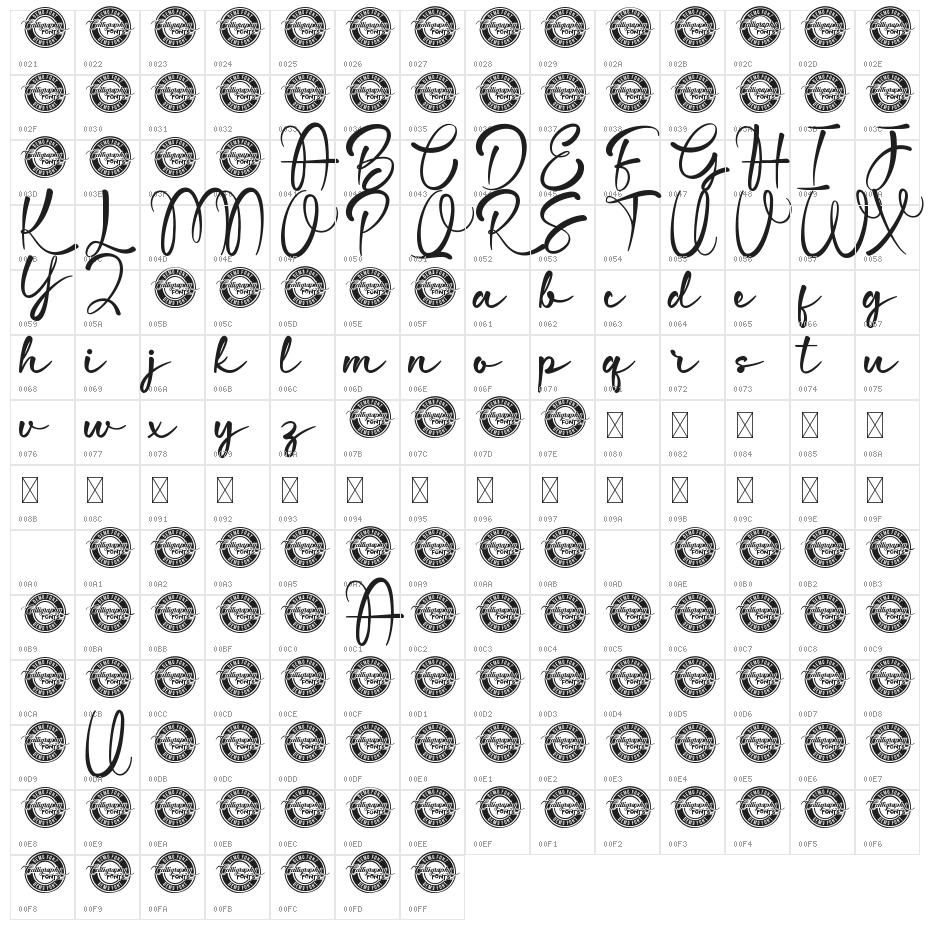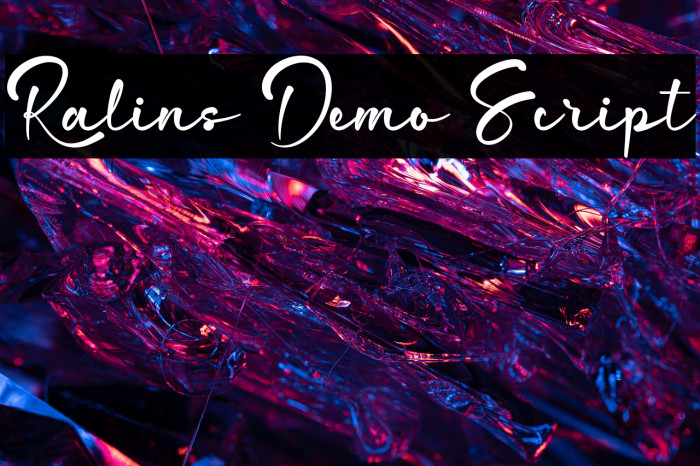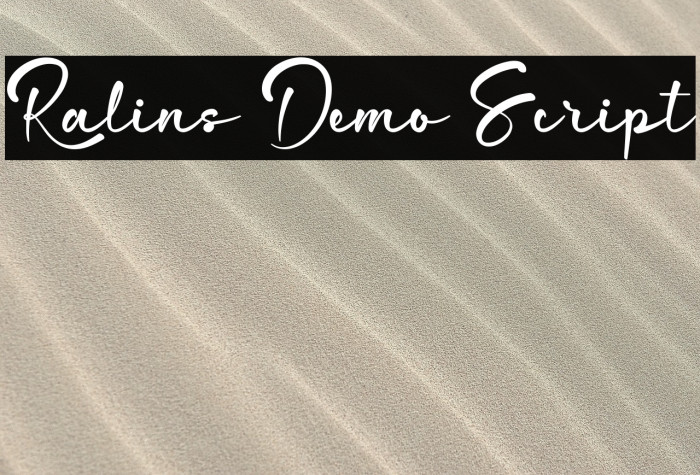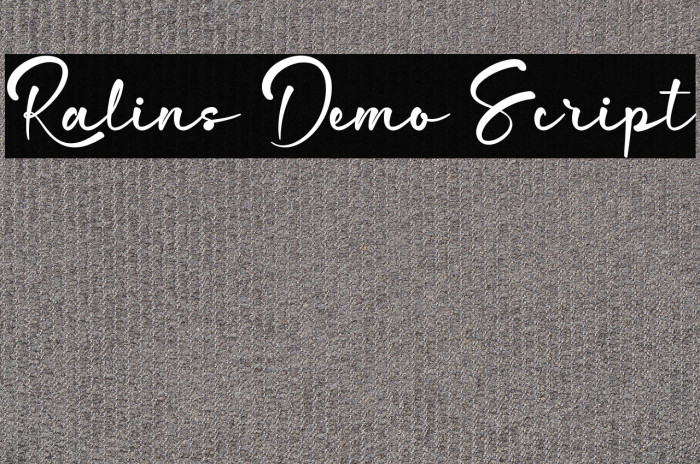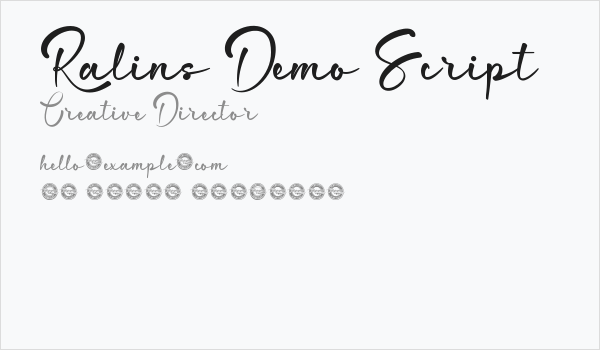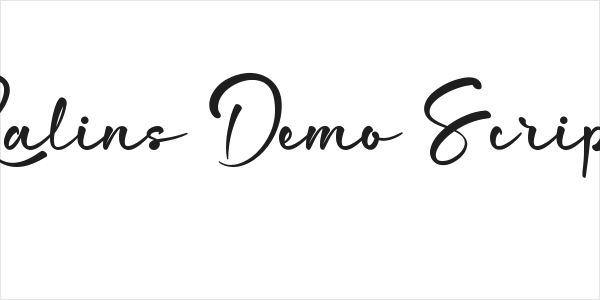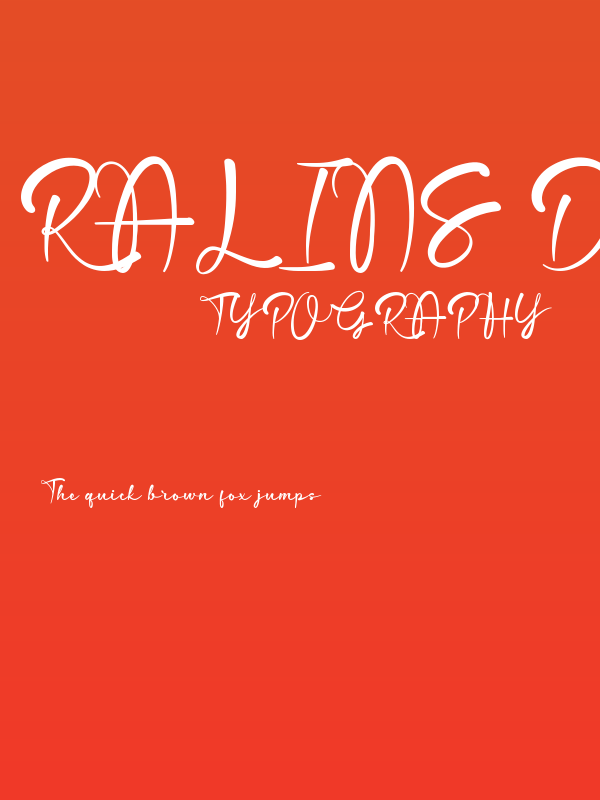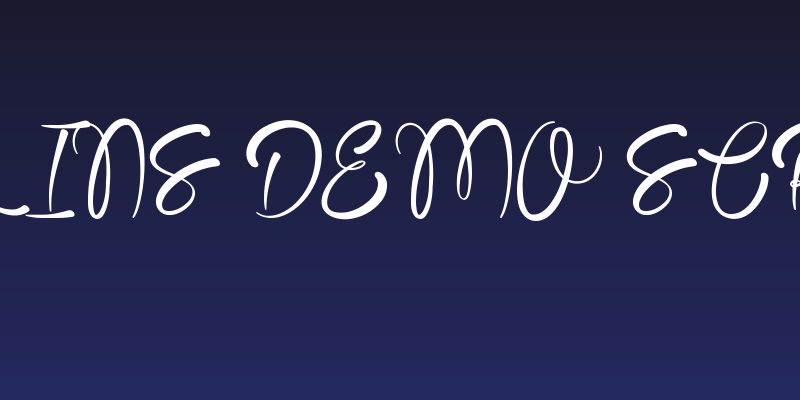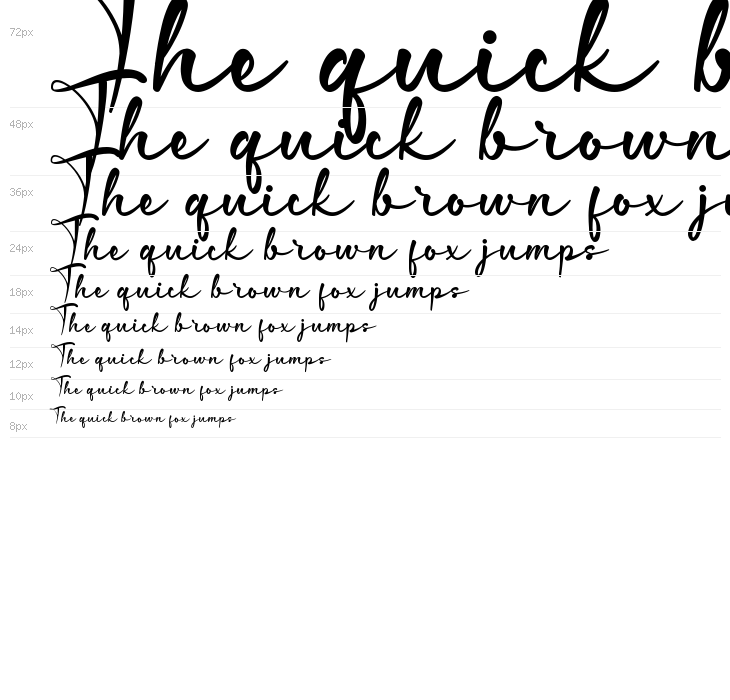
Ralins Demo Script Font
Ralins Demo Script Description
This script font features elegant, flowing letters with a handwritten style, characterized by smooth curves and a natural, organic feel. The uppercase letters are ornate and decorative, while the lowercase letters maintain a consistent rhythm and fluidity. The font's design is reminiscent of traditional calligraphy, with a modern twist that makes it suitable for a variety of applications. The characters are well-spaced, ensuring readability while maintaining an artistic flair. This font is ideal for projects that require a personal touch, such as invitations, greeting cards, and branding materials.
| Use Case | Logos, Invitations, Greeting Cards |
| Proposed Projects | Ideal for wedding invitations, greeting cards, logos, and branding materials. |